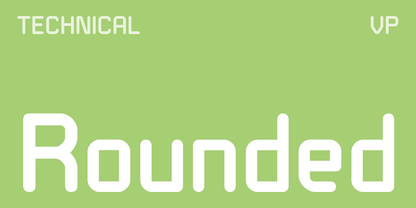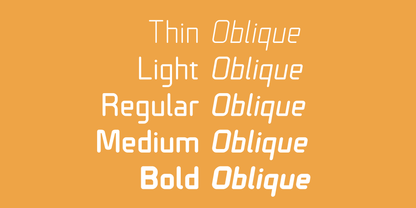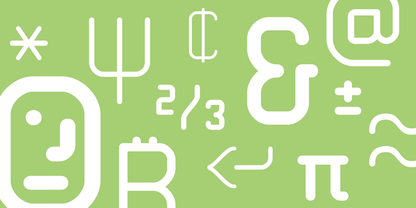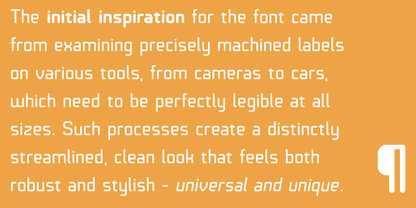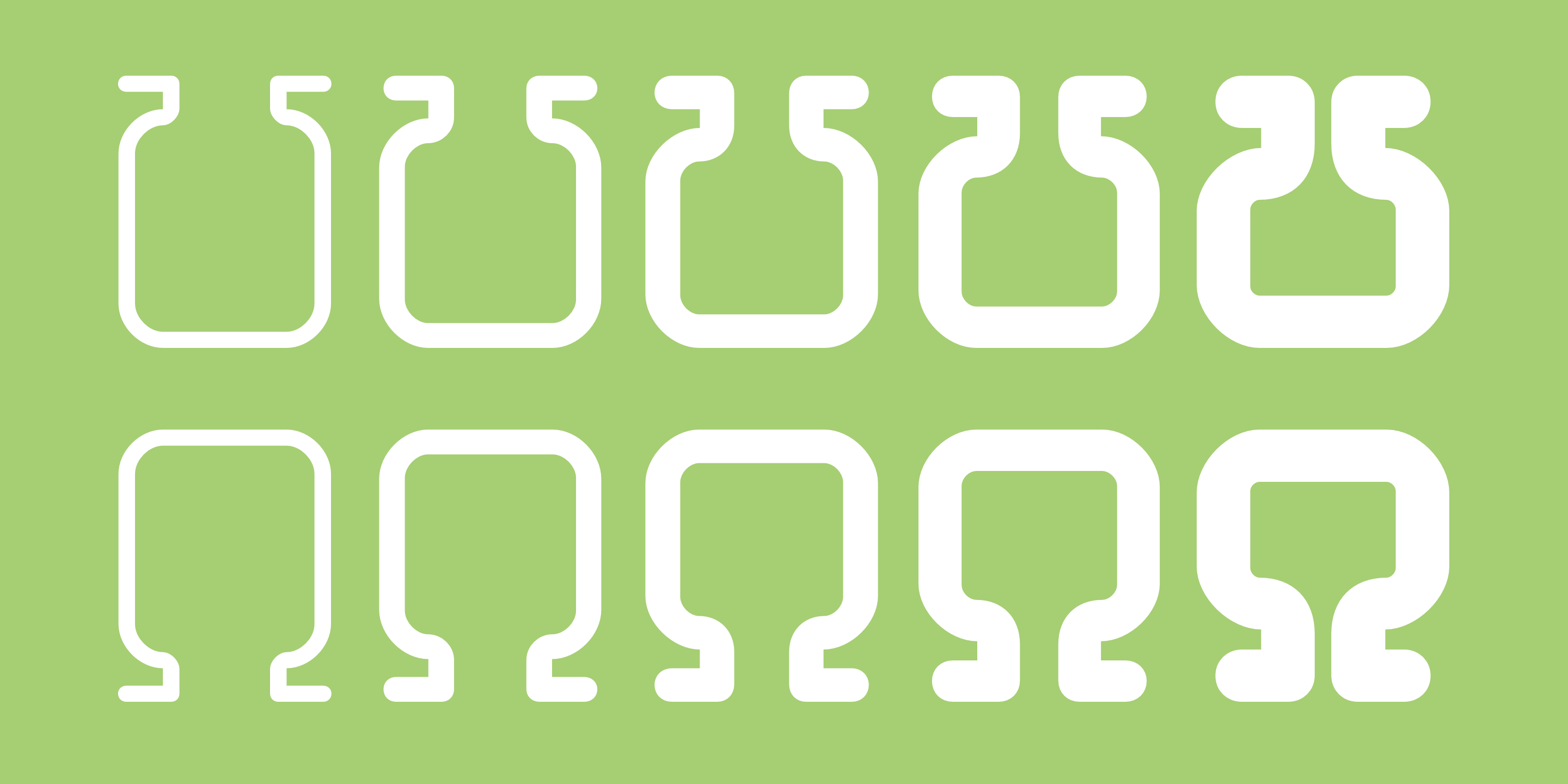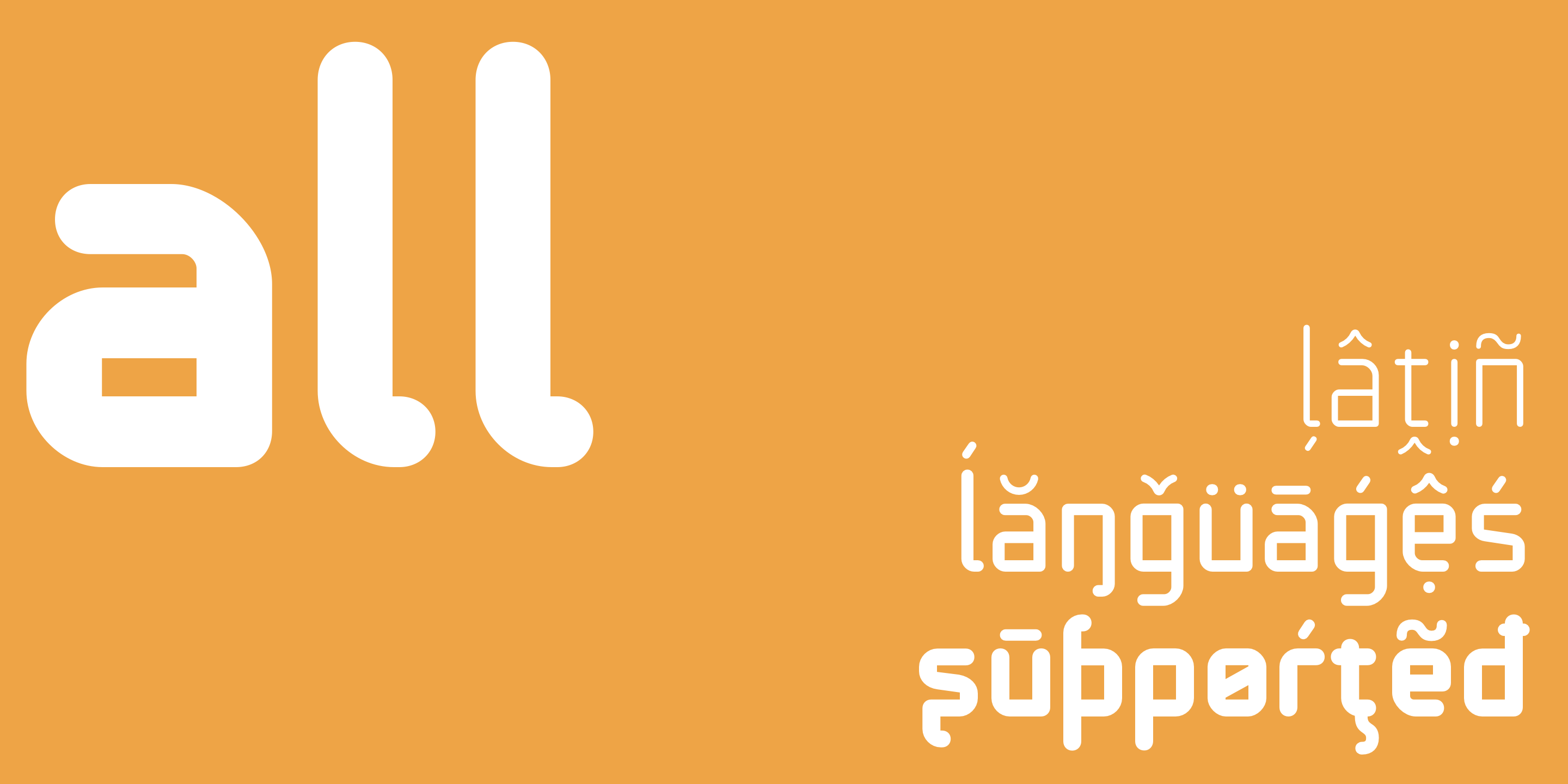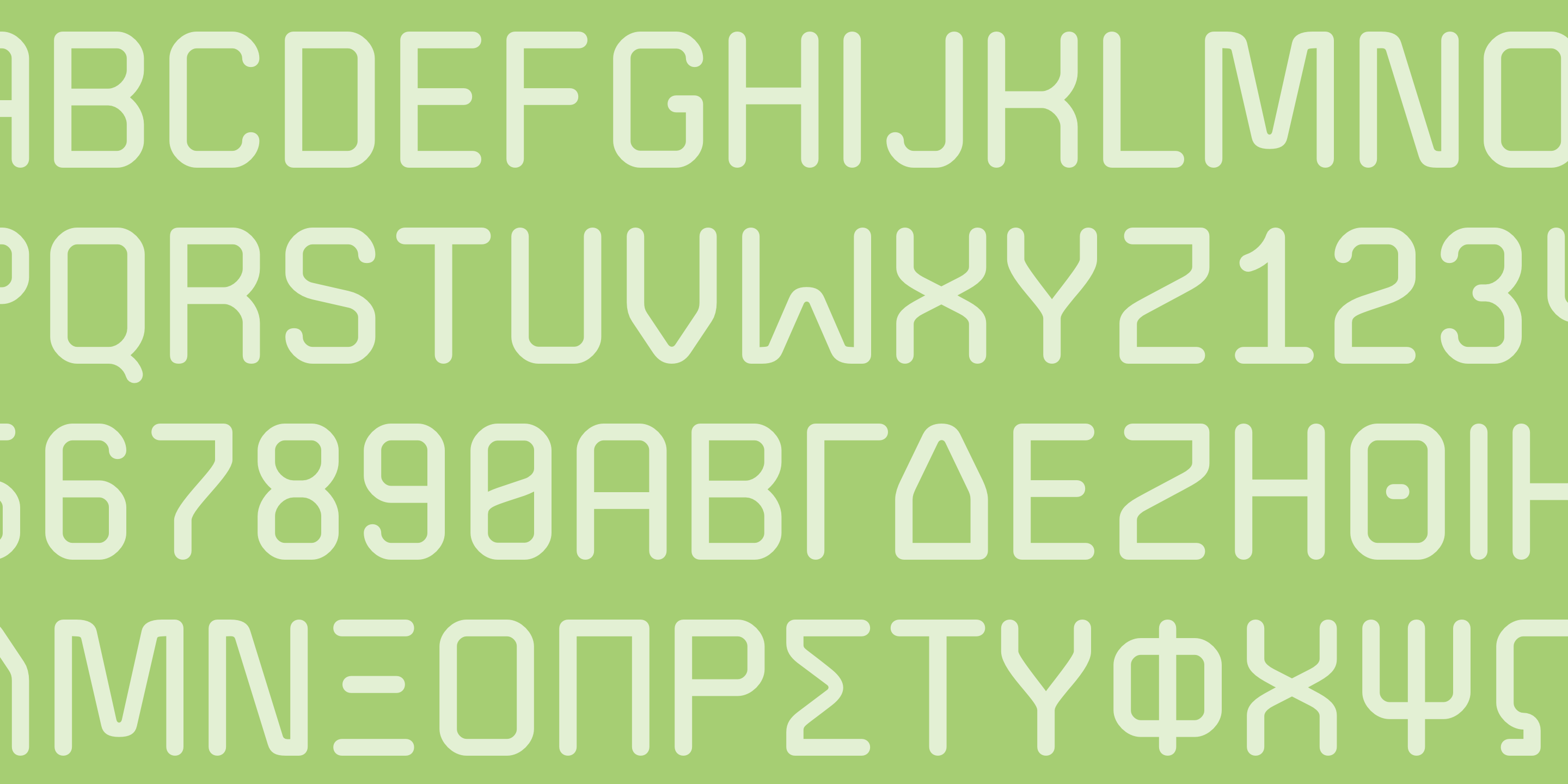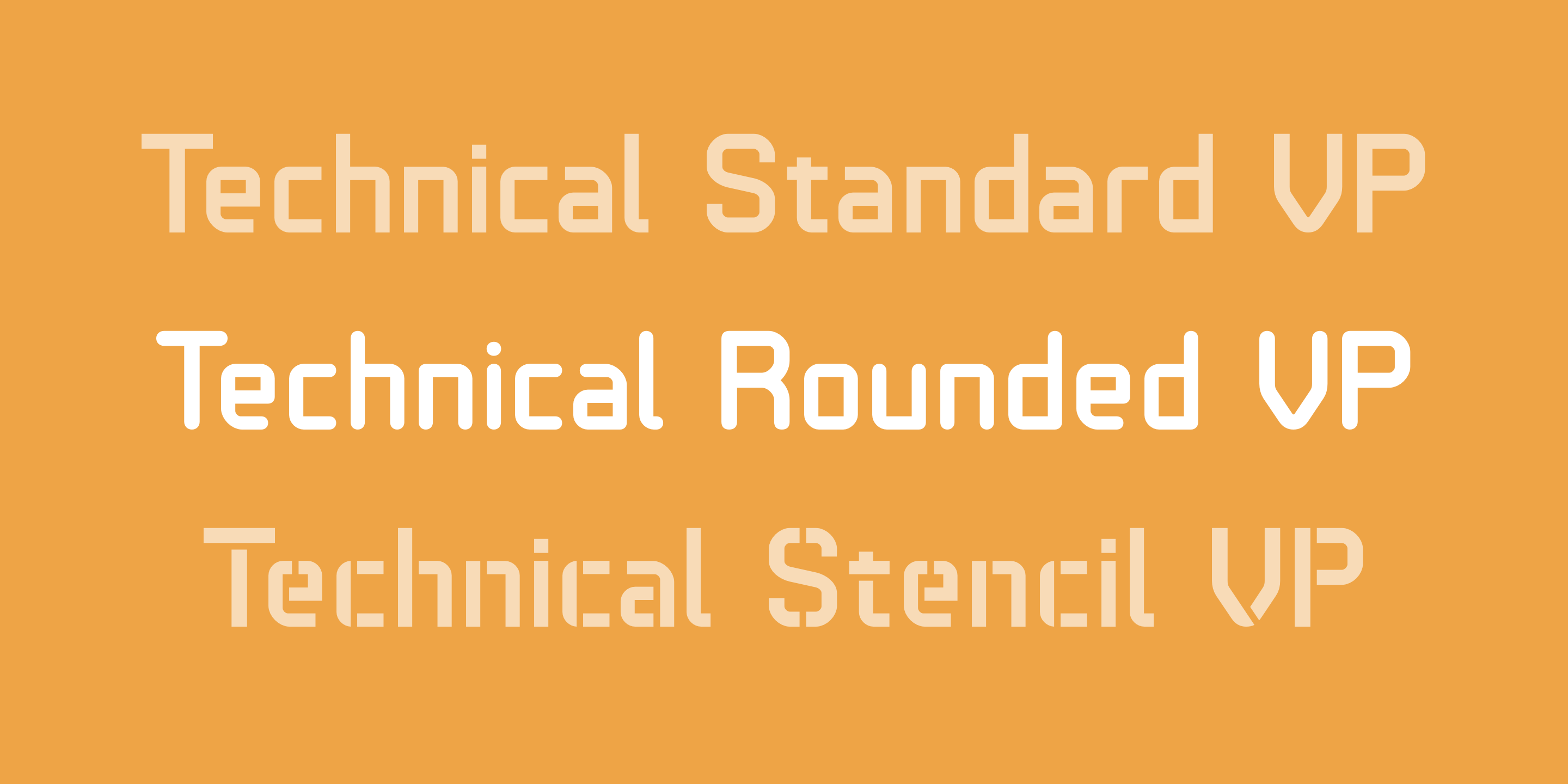
The initial inspiration for the typeface came from examining precisely machined labels on tools of various kinds, from cameras to cars, which need to be perfectly legible at all sizes. Such processes create a distinctly streamlined, clean look that feels both robust and stylish - universal and unique. Technical Rounded VP includes ten diverse styles, offering great versatility.
All styles in this family include an extensive Latin character set, the Greek alphabet, multiple sets of numerals, a large set of punctuation marks, and other symbols. With 1120 glyphs in each style, it guarantees <b>full support for all Latin languages</b>. To make the family even more powerful, twenty OpenType features are included, such as multiple vertical positions, diagonal fractional forms, optional slashed zeros, separate old-style and lining figures, small capitals, and contextual alternates.
<b>Technical Rounded VP is the soft counterpart of Technical Standard VP.</b> They can be used either on their own or together seamlessly.